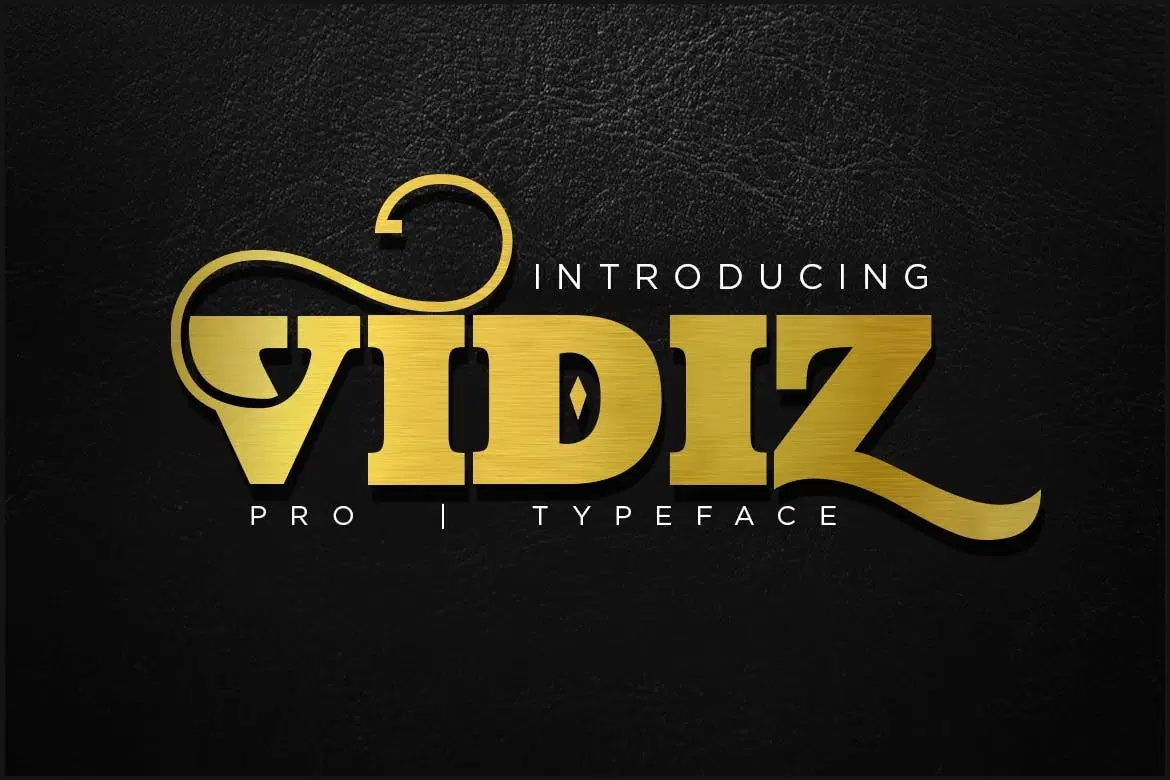
VIDIZ PRO Typeface is serif font designed to help you create the look of stunning on your work. Vidiz suitable for logo,poster, invitations, greeting cards, quotes, branding, name card, etc
The Features of this fonts is ;
Discretionary Ligatures
Standart ligatures
Stylistic Alternates